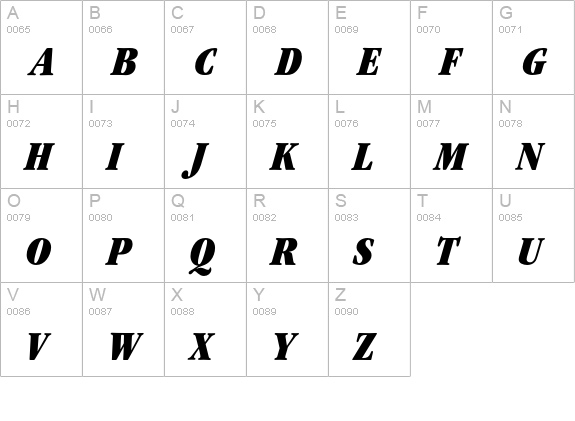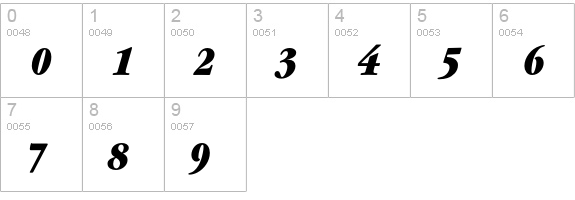
GaramondEF-UltraCondIta is an exquisite font that exudes elegance and sophistication. Its slender and elongated letterforms are meticulously crafted to create a sense of refined beauty. This ultra condensed italic variant of the beloved Garamond typeface offers a unique blend of classic charm and contemporary flair. With its delicate curves and graceful strokes, GaramondEF-UltraCondIta adds a touch of luxury to any design project. Whether used for editorial purposes, branding, or invitations, this font effortlessly captures attention and evokes a sense of timeless style. What sets GaramondEF-UltraCondIta apart is not only its visually stunning appearance but also its accessibility. This font is freely available to download at FontsMarket.com, ensuring that designers and creatives from all walks of life can incorporate this exceptional typeface into their work. Its availability allows for endless possibilities, enabling everyone to elevate their designs without limitations. GaramondEF-UltraCondIta is perfect for those seeking to make a statement with their typography. Its slender design makes it ideal for fitting lengthy text into tight spaces without compromising legibility. Whether used for headings, subheadings, or body text, this font retains its clarity and readability even at smaller sizes. Combining the rich heritage of the Garamond family with a modern twist, GaramondEF-UltraCondIta is a versatile font that seamlessly blends tradition and innovation. Its timeless appeal ensures that it remains a staple in the world of typography, captivating audiences across various mediums. Embrace the beauty of GaramondEF-UltraCondIta and experience the freedom it offers with its availability for free download at FontsMarket.com. Elevate your designs and unleash your creativity with this extraordinary font that effortlessly combines elegance and accessibility.